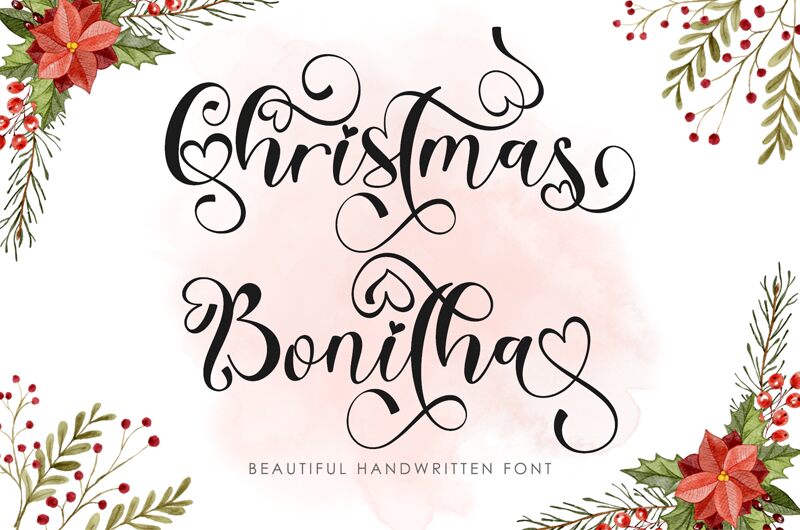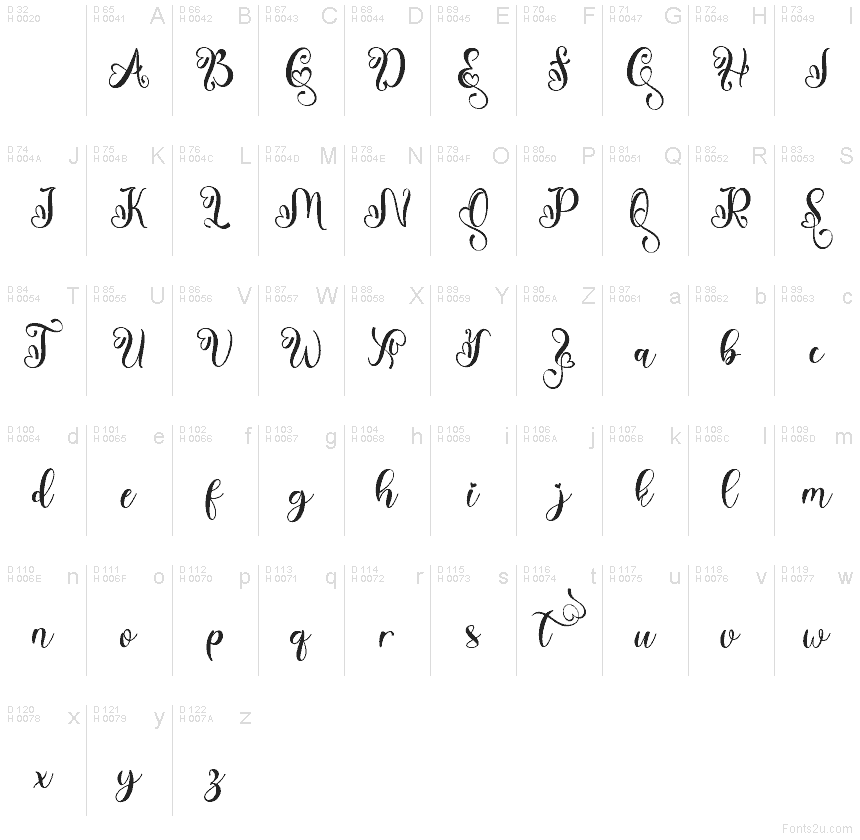
Christmas Bonitha Demo
Christmas Bonitha font by Yoga Letter is a free decorative Christmas typeface with a lush, swirling script that feels like it was written in fresh ink on thick, snowy cardstock. Its tall, elegant letters are wrapped in generous curls and flourishes, giving every word a festive, gift-tag glow. The rhythm is flowing but not chaotic, so even with all the decoration, your message still reads clearly at a glance.
Using Christmas Bonitha, you can instantly dress up holiday cards, invitations, gift labels, posters, party signage, social graphics, and cozy seasonal branding. This free font shines when you set it large and let those flourishes breathe, then pair it with a simple sans serif for small supporting text. It’s a natural fit for any project that needs a romantic, storybook Christmas atmosphere.